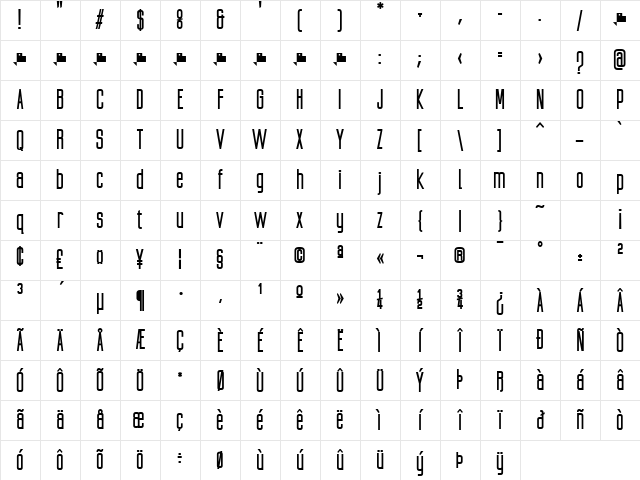
Ubicada Pro Bold Free Font
Ubicada Pro Bold
Foundry: Fernando Haro
Designer: deFharo
Design Context for Ubicada Pro
Ubicada Pro is a composed and adaptable typeface that performs quietly and consistently across a wide range of design contexts. Its bold stroke weight gives it real presence on the page.